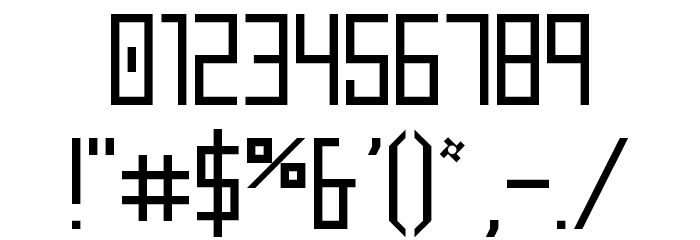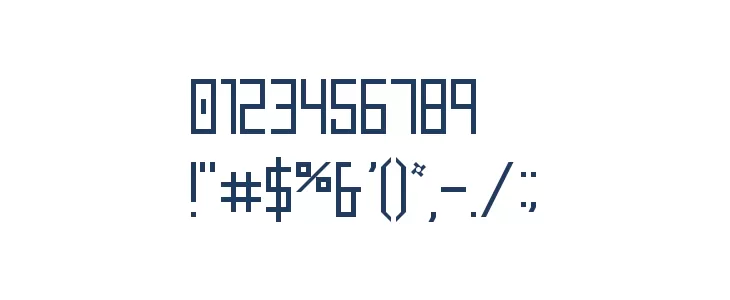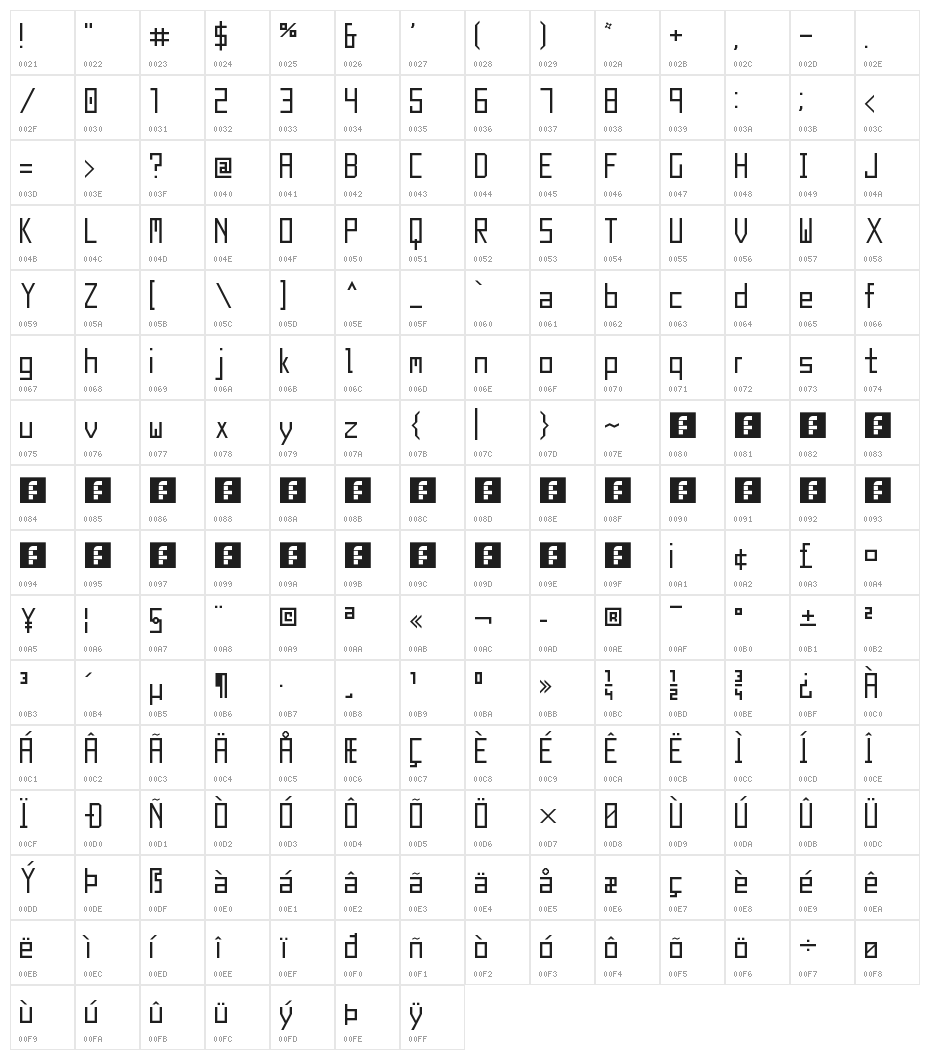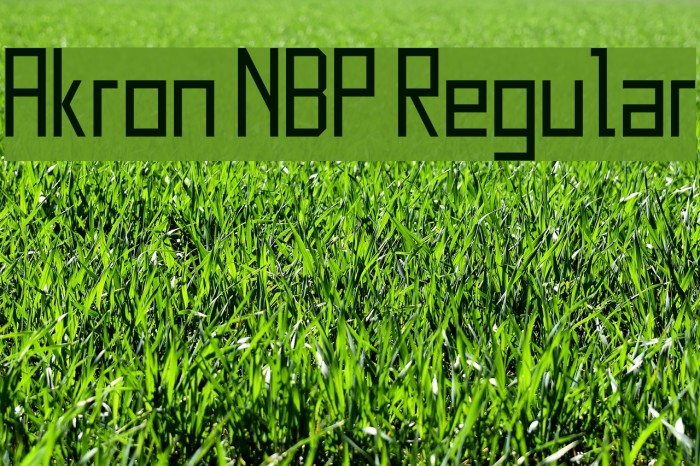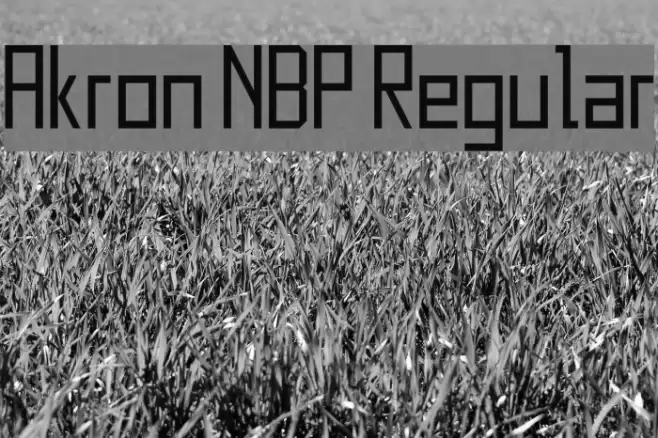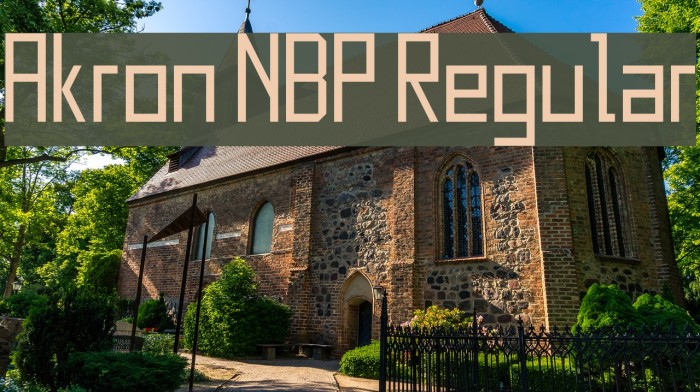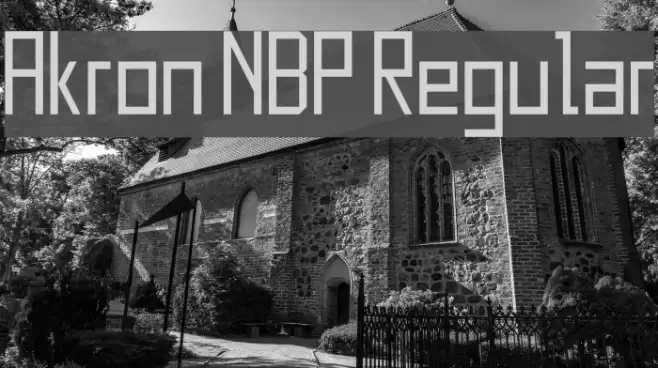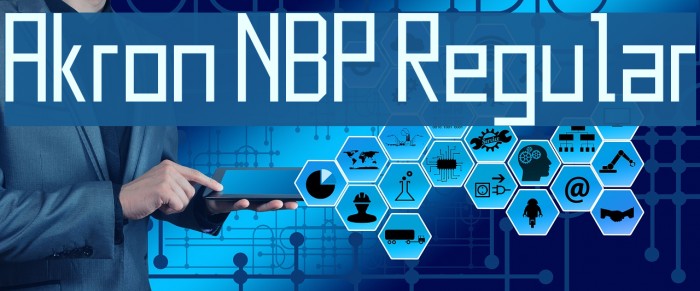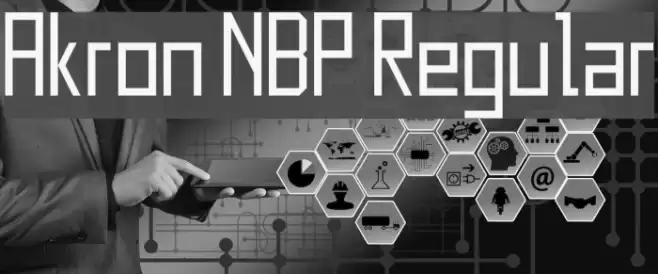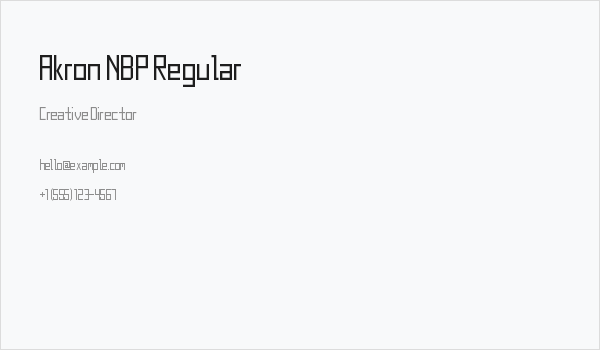
Akron NBP Regular Font
Akron NBP Regular Description
This font features a geometric and modern design with a distinct blocky appearance. The characters are uniformly structured with sharp angles and straight lines, giving it a futuristic and digital feel. The uppercase and lowercase letters maintain a consistent height, contributing to a cohesive look. The numerals and special characters follow the same design principles, ensuring uniformity across all glyphs. Its clean and minimalistic style makes it suitable for digital and tech-related projects.